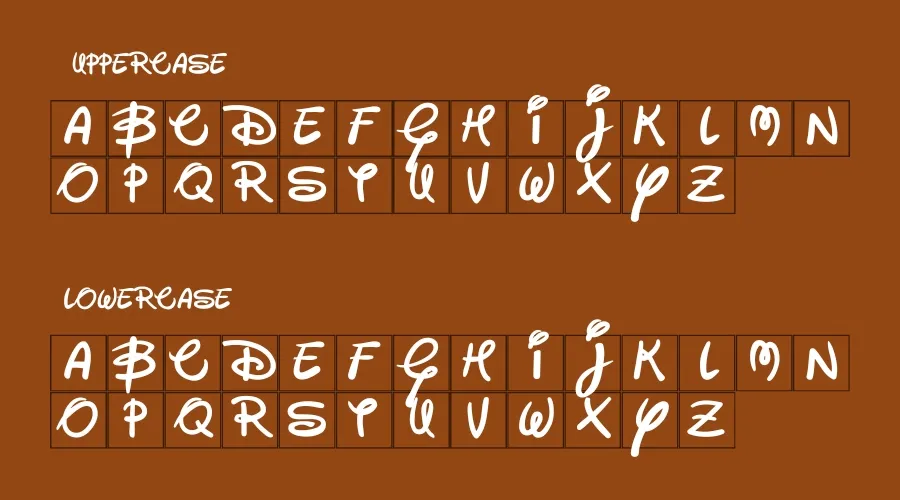
Disney Font
About Disney Font
The Disney Font is under the category of the script texture family that was created by Justin Callaghan. It was published first time in the font world through Mickeyavenue.com in 2000. You may easily get this gorgeous texture free from here for various purposes.
It gained popularity in a very short time due to its bold and stylish texture look. The characters of the Walt Disney typeface are similar to a famous font called Waltograph font. This font has an online generator tool, where you can change all your simple textures into modern shapes.
This font works well with the hello honey font because, it has also a bold, and attractive texture that can make perfect pair with this font.